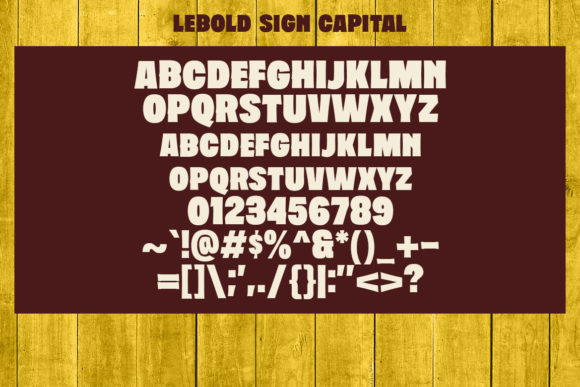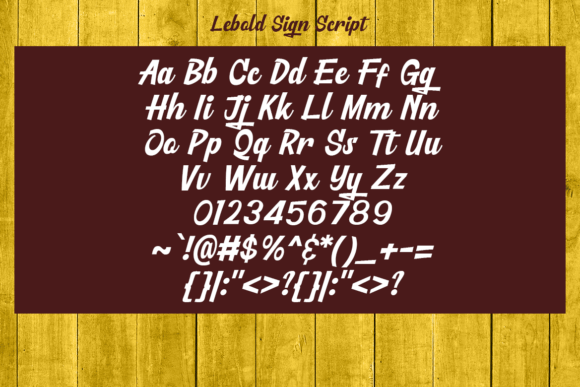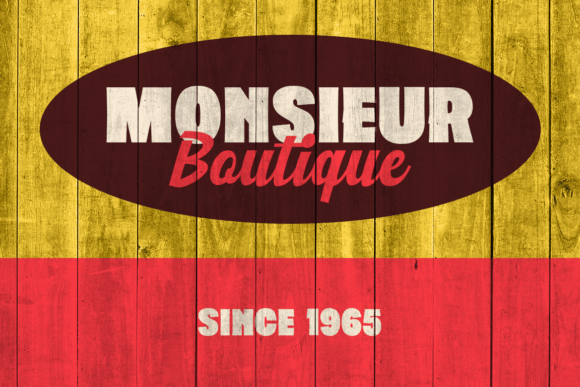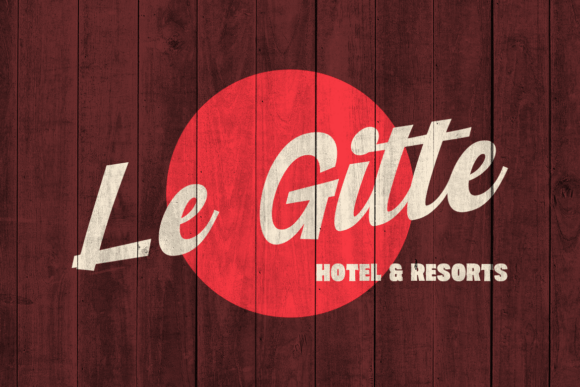
Introduction to Lebold Sign Font
As a designer, you’ve probably found yourself stuck on a project, searching for the perfect font to bring your creative vision to life. You scroll through design resources, scouring for that one elusive element that will elevate your design from good to great. And then, you stumble upon it – Lebold Sign Font, a bold revival of hand-painted signage that transports you back to the vibrant era of the 60s and 70s.
With Lebold Sign Font, you can tap into the timeless charm of classic storefronts, motel signs, and posters that defined a generation. This versatile 2-in-1 font family boasts a bold Sans Serif and a flowing Script, perfect for adding that authentic, hand-painted vibe to your visuals. Whether you’re working on a branding project, logo design, or packaging, Lebold Sign Font is a valuable resource that will give your creative project the high-quality finish it deserves.
Key Features of Lebold Sign Font
- High-quality, professional font designed for creative projects and signage.
- Includes a wide range of characters, including uppercase and lowercase letters, numbers, and symbols.
- Perfect for signage, advertising, and other creative projects where a bold, eye-catching font is needed.
Honest Review: Lebold Sign Font
- ✨ High-quality design: The Lebold Sign Font boasts a crisp, clean aesthetic that’s perfect for a variety of creative projects.
- ⚠️ Limited character set: While the font is well-suited for basic text, it may not be the best choice for complex, multi-line text.
- ⚠️ May not be suitable for small text: The font’s design may not be legible when used in small sizes, so be sure to test it accordingly.
Overall, I’m impressed with the Lebold Sign Font’s versatility and high-quality design. While it may have some limitations, it’s an excellent resource for designers working on creative projects that require a clean, modern aesthetic.
The Lebold Sign Font is a high-quality design resource perfect for your creative project. It features a transparent background, making it easy to use in various design applications.
To get the most out of the Lebold Sign Font, use it in combination with other design elements, such as graphics and images, to create a visually appealing design. Experiment with different font sizes and styles to achieve the desired look.
The Lebold Sign Font is commonly used in:
- Signage and branding
- Marketing materials, such as brochures and flyers